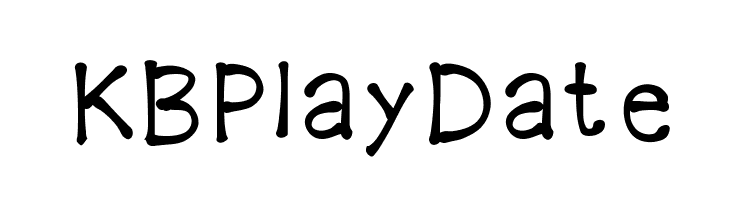
A bold, decorative font with circular cutouts for a playful look.
A playful, hand-drawn font with bold, irregular shapes and a whimsical style.
A bold, modern font with blocky, uniform characters.
A playful, handwritten font with smooth curves and a casual style.
A playful, handwritten italic font with medium contrast and unique framed characters.
A bold, outlined font with a futuristic and sporty style.
A bold, geometric stencil-style font with a modern industrial feel.
A futuristic, geometric font with clean lines and a modern appearance.
A futuristic, geometric font with bold, rounded letterforms and unique cutouts.
A bold, futuristic font with geometric shapes and unique cutouts.
A futuristic, bold italic font with geometric shapes and smooth curves.
A futuristic, bold, and italic font with geometric and space-age elements.
A futuristic, geometric outline font with circular elements and consistent width.
A futuristic, geometric outline font with italicized characters.
An ornate and decorative font with intricate detailing and bold characters.